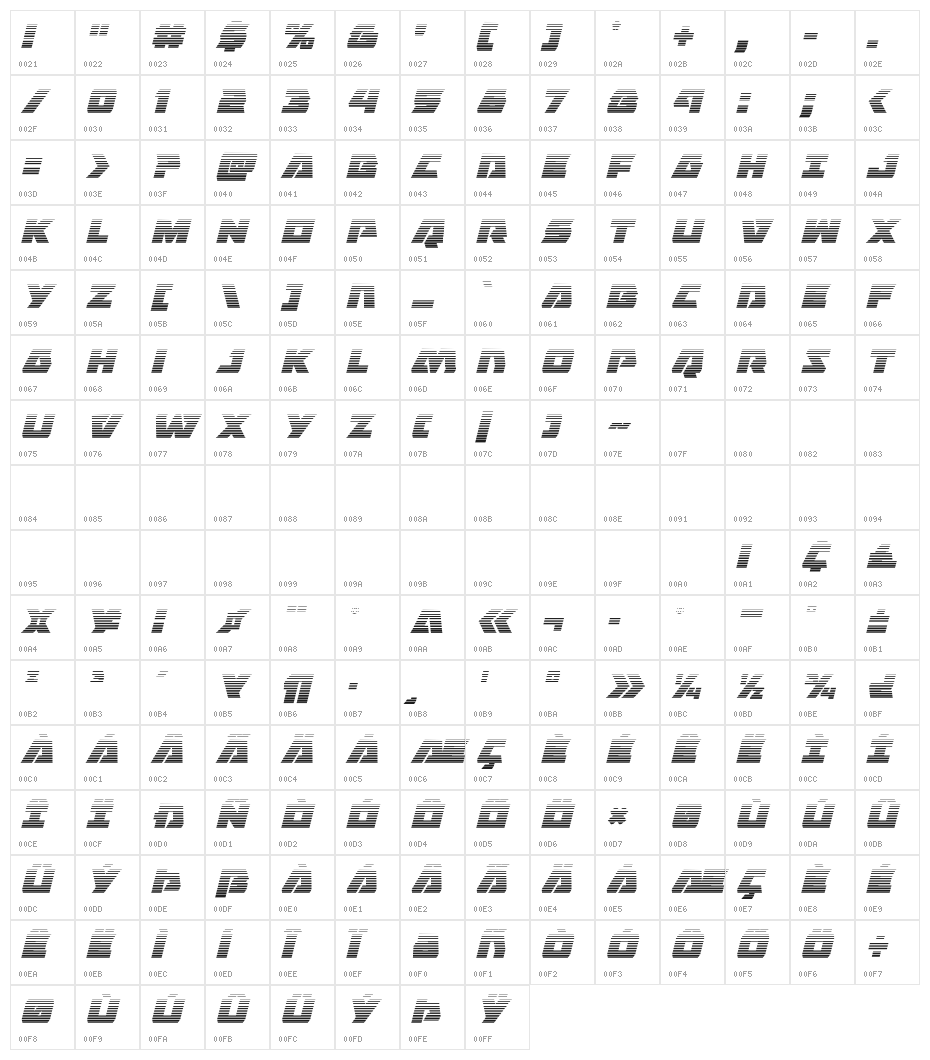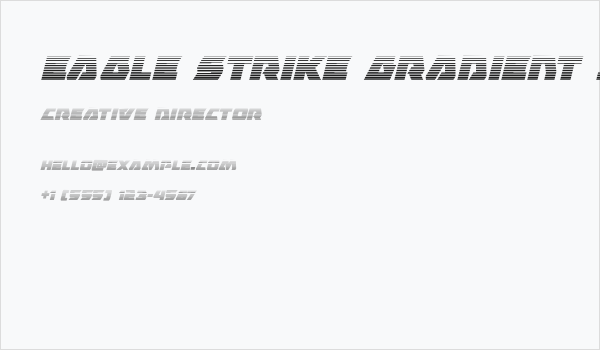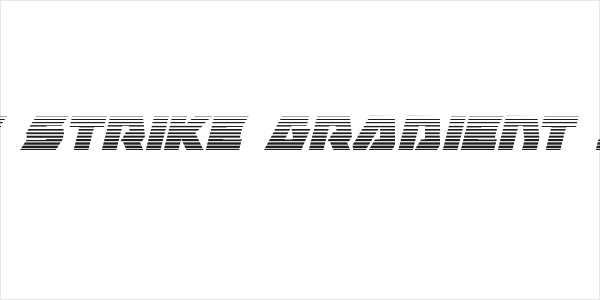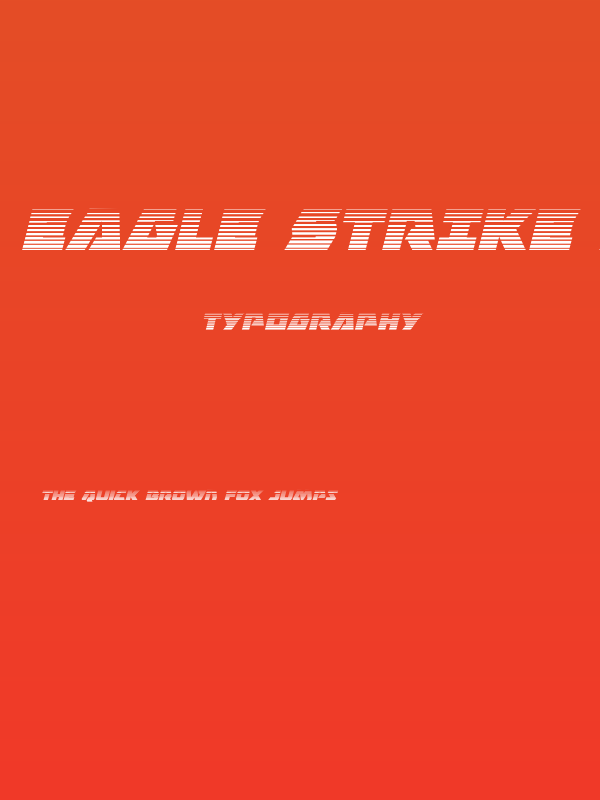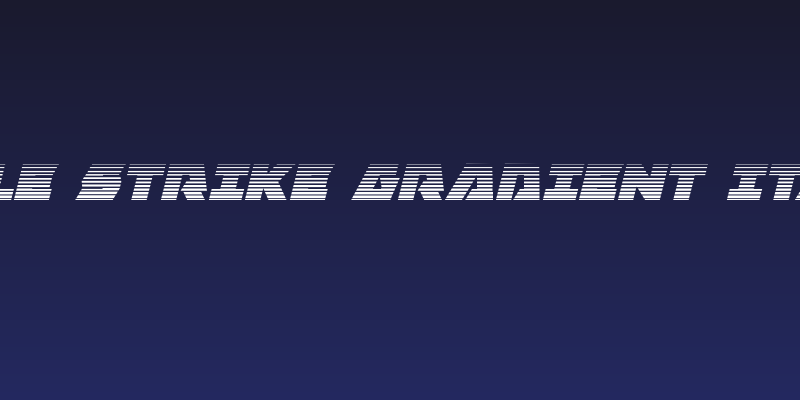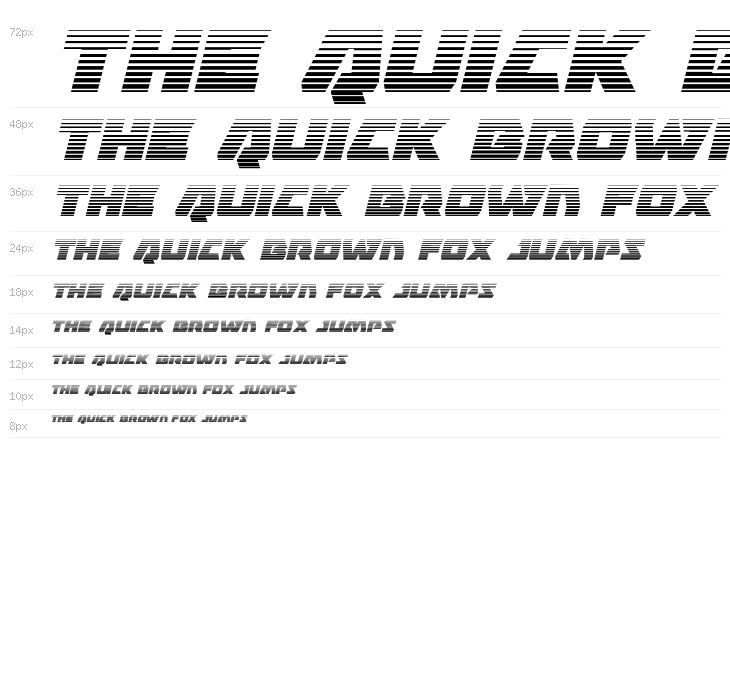
Eagle Strike Gradient Italic Font
Eagle Strike Gradient Italic Description
This font features a bold, italicized style with a unique gradient effect created by horizontal lines that form each character. The design is highly geometric, with sharp angles and a futuristic aesthetic. The uppercase and lowercase letters maintain a consistent style, emphasizing a sense of speed and movement. The numbers and special characters are equally dynamic, making this font ideal for projects that require a modern and edgy look. The overall appearance is striking and memorable, suitable for attention-grabbing headlines or logos.
| Proposed Projects | Ideal for sports branding, tech-related logos, video game titles, and dynamic posters. |